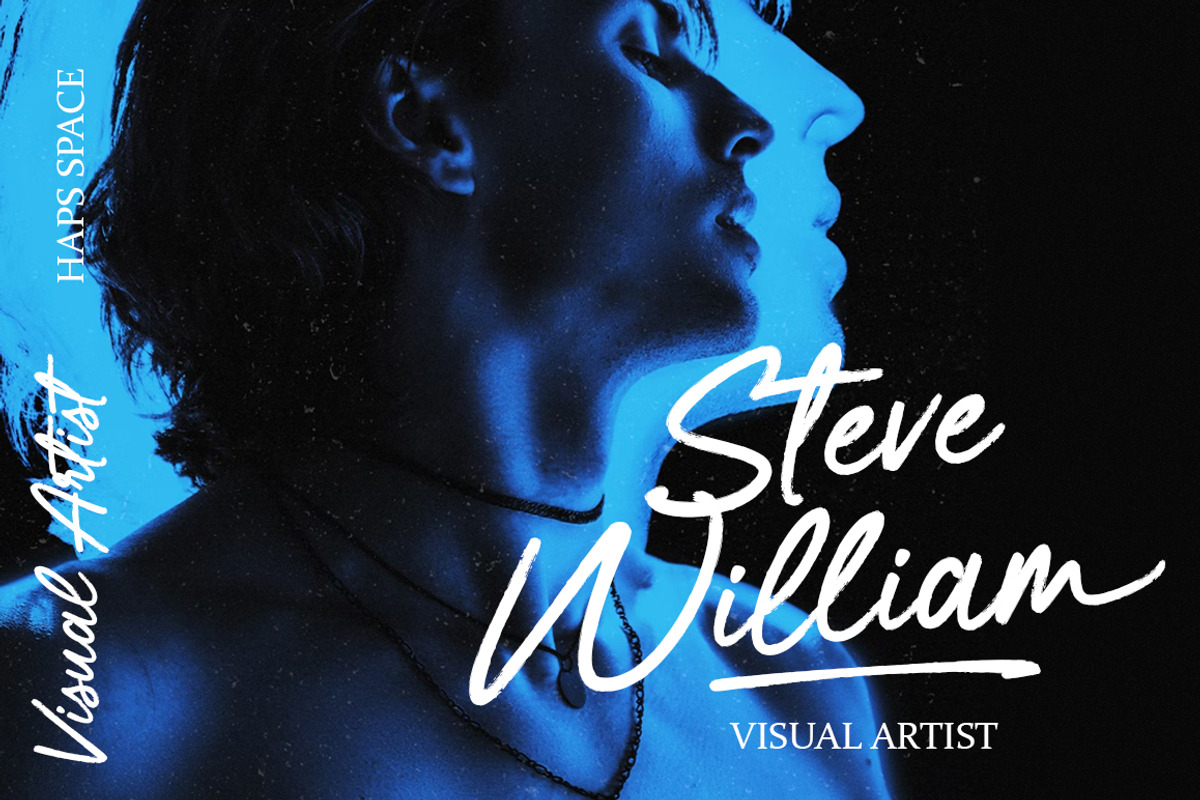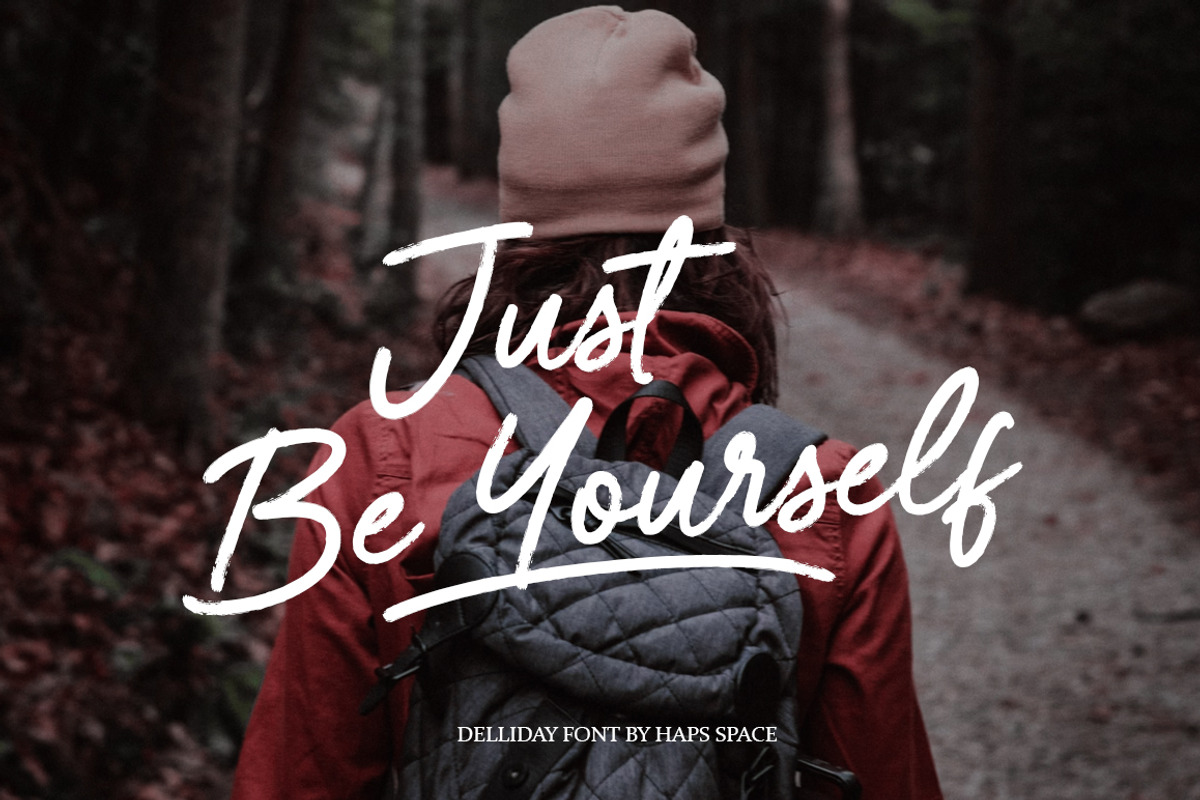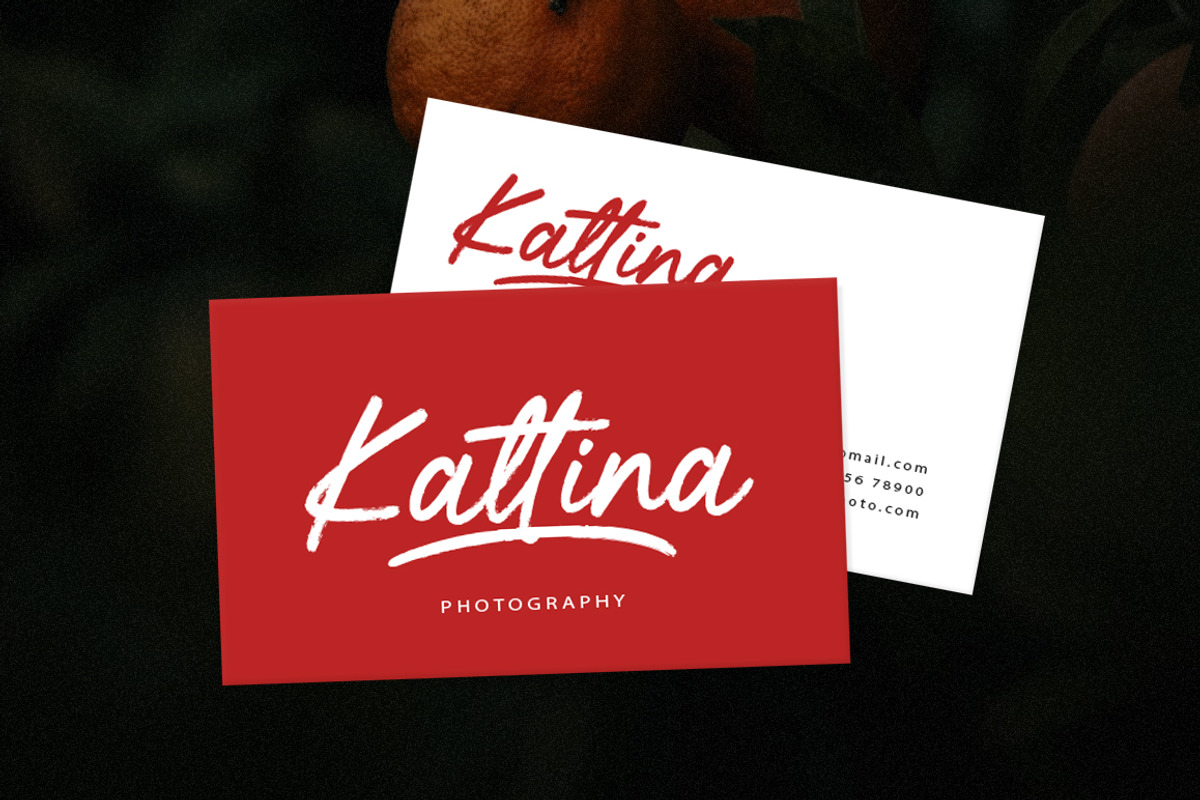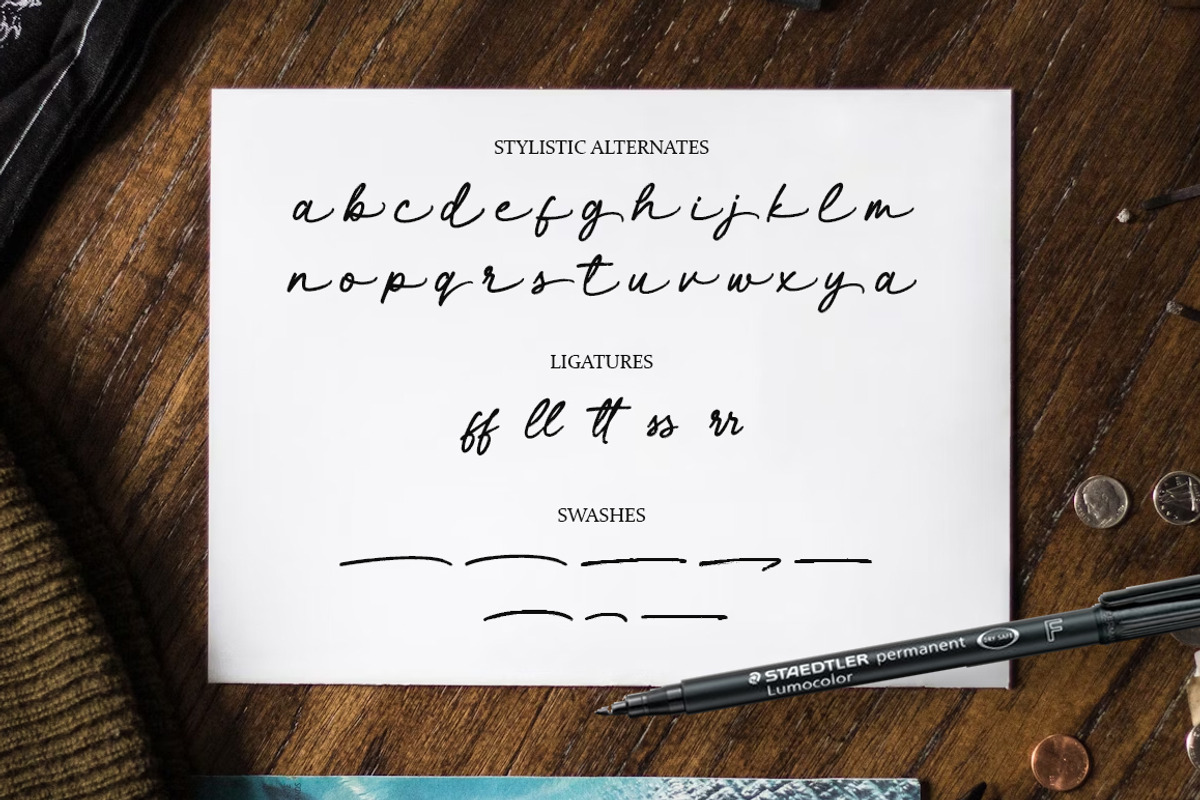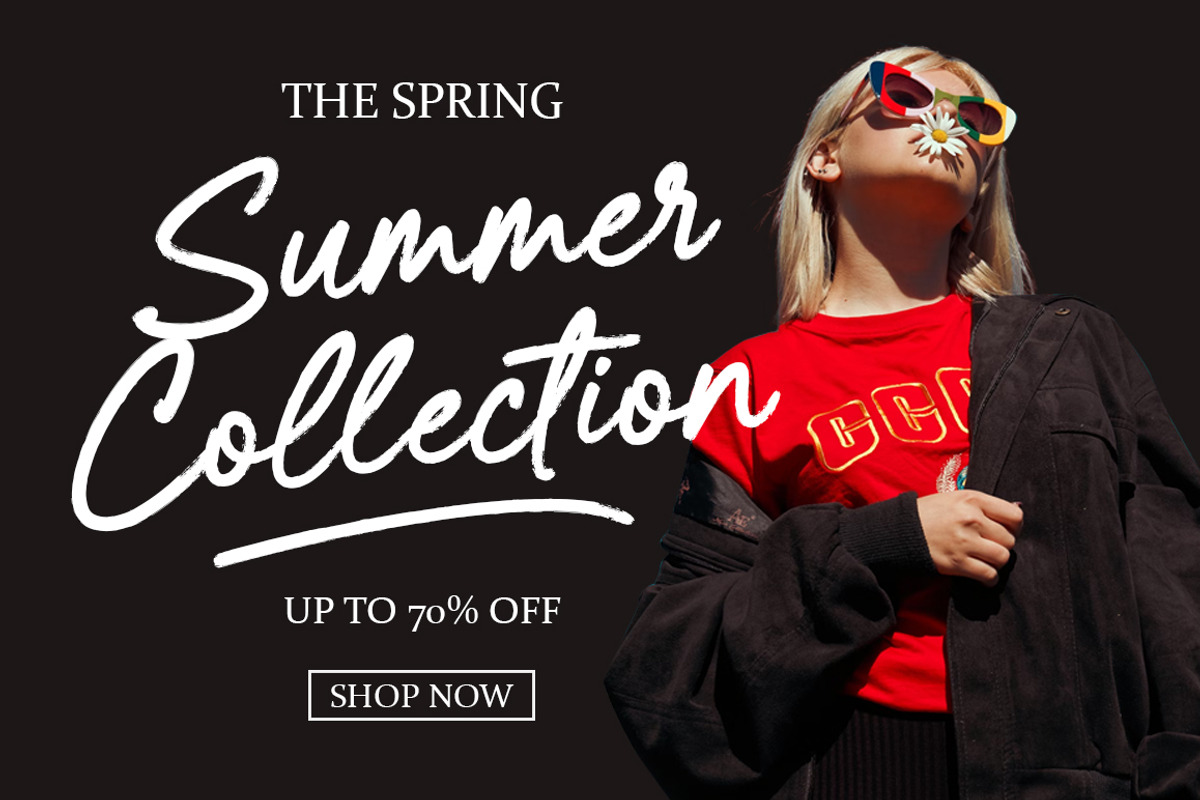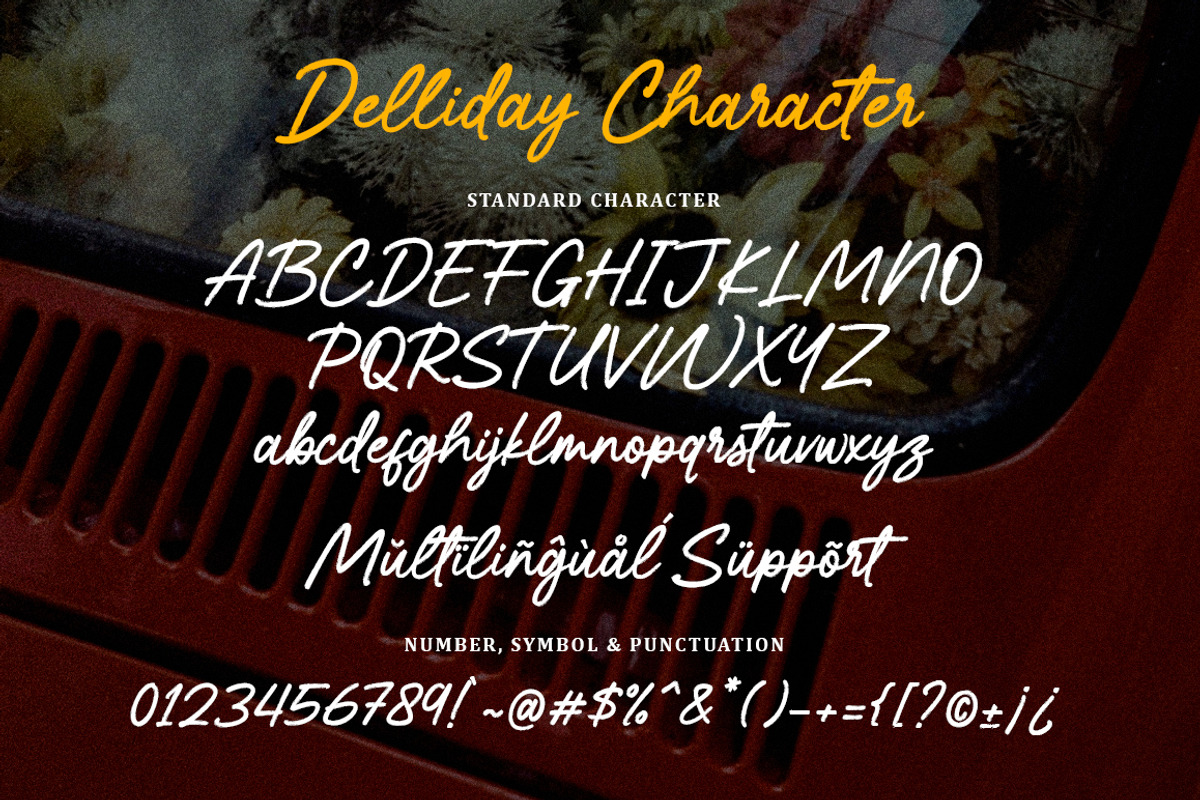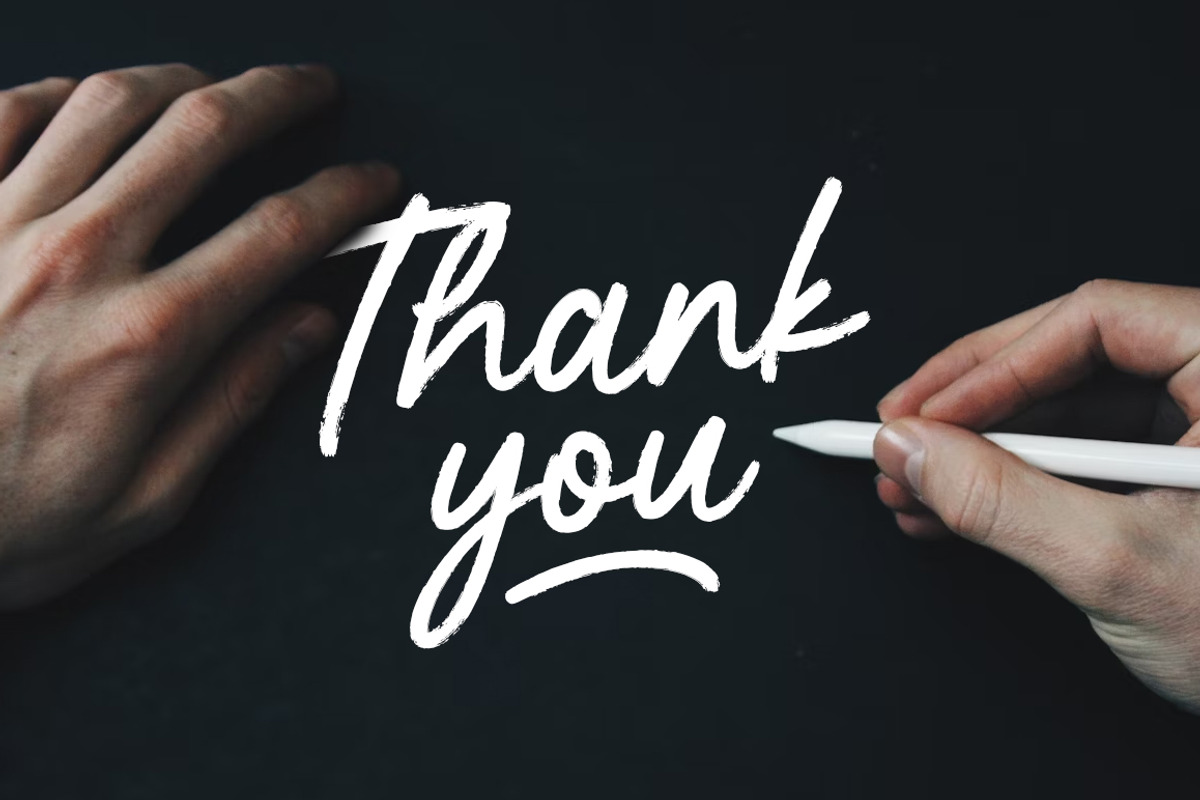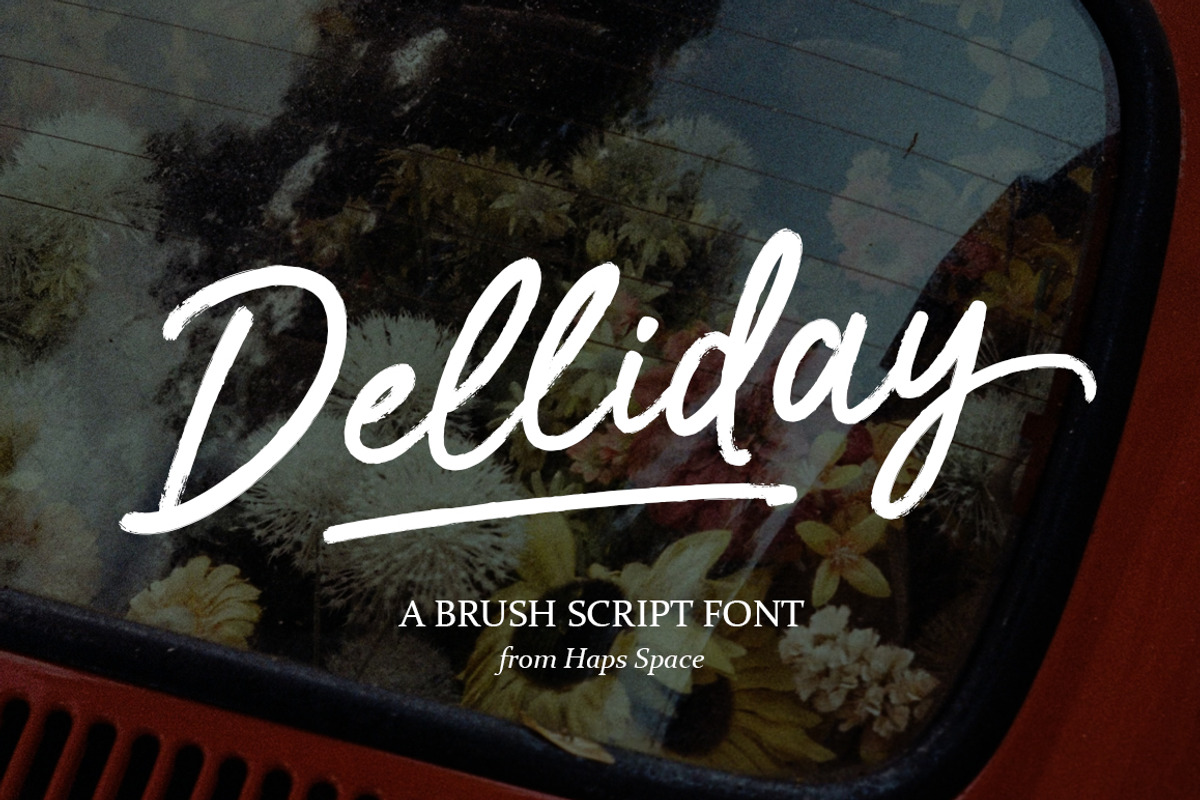
Delliday Brush Script
Delliday is a bold and expressive brush script font that brings energy, authenticity, and a handcrafted feel to your design projects. Created with natural brush strokes, Delliday adds character and warmth—perfect for creatives who want a font that feels raw, real, and beautifully imperfect.
- Vintage & retro aesthetics
- Social media branding
- Instagram quotes and captions
- Greeting cards & invitations
- Fashion, beauty & lifestyle content
- Unique Letterforms